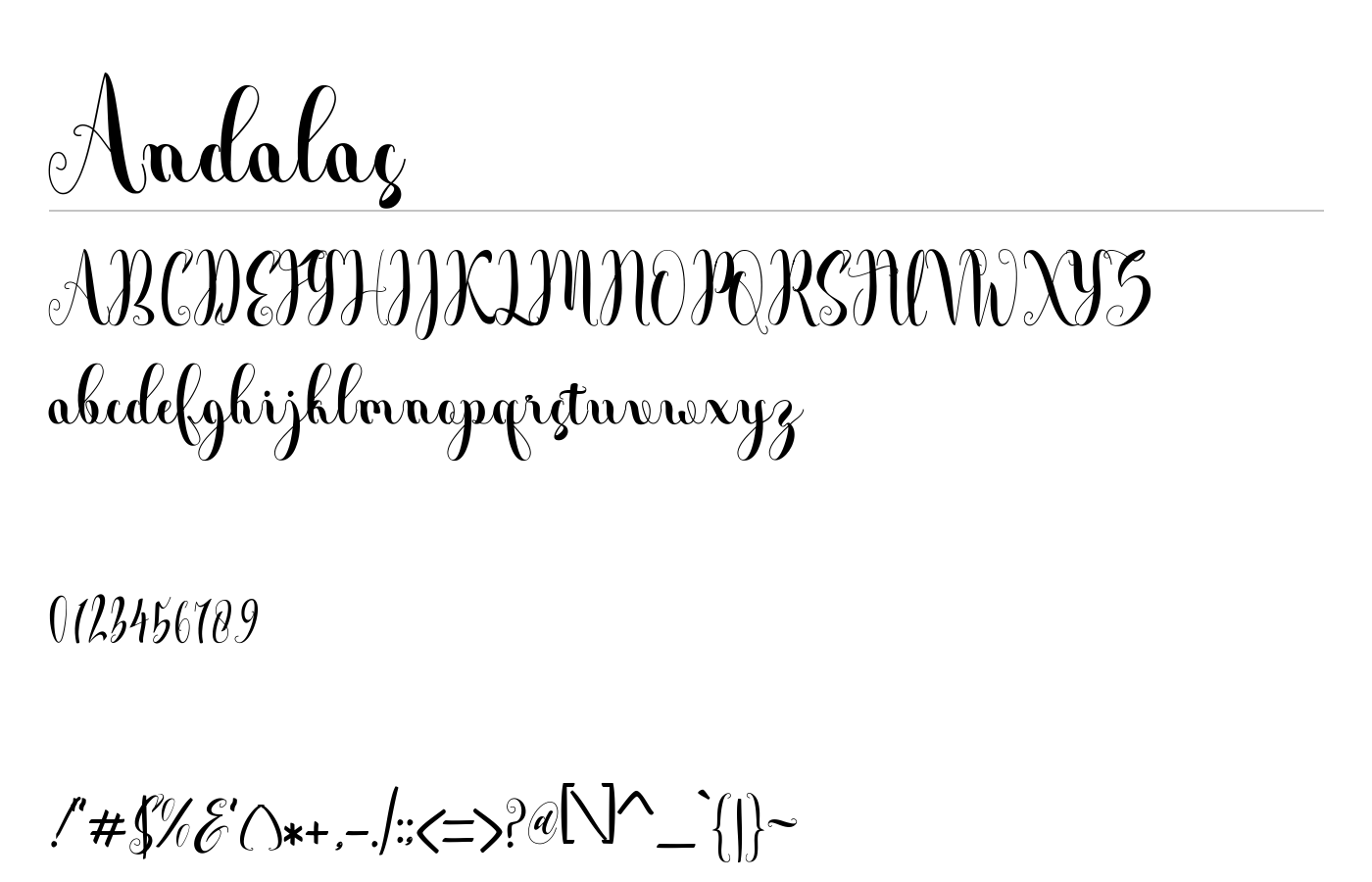
Andalas is an elegant script font characterized by its high contrast strokes and refined, sweeping curves that give it a graceful and sophisticated feel. Its delicate flourishes and flowing letterforms make it ideal for luxury branding, wedding invitations, and creative projects that require a touch of romance and charm. This font works best in display settings, such as logos, headlines, and packaging, where its decorative style can truly stand out.
Andalas Font
About Andalas Font